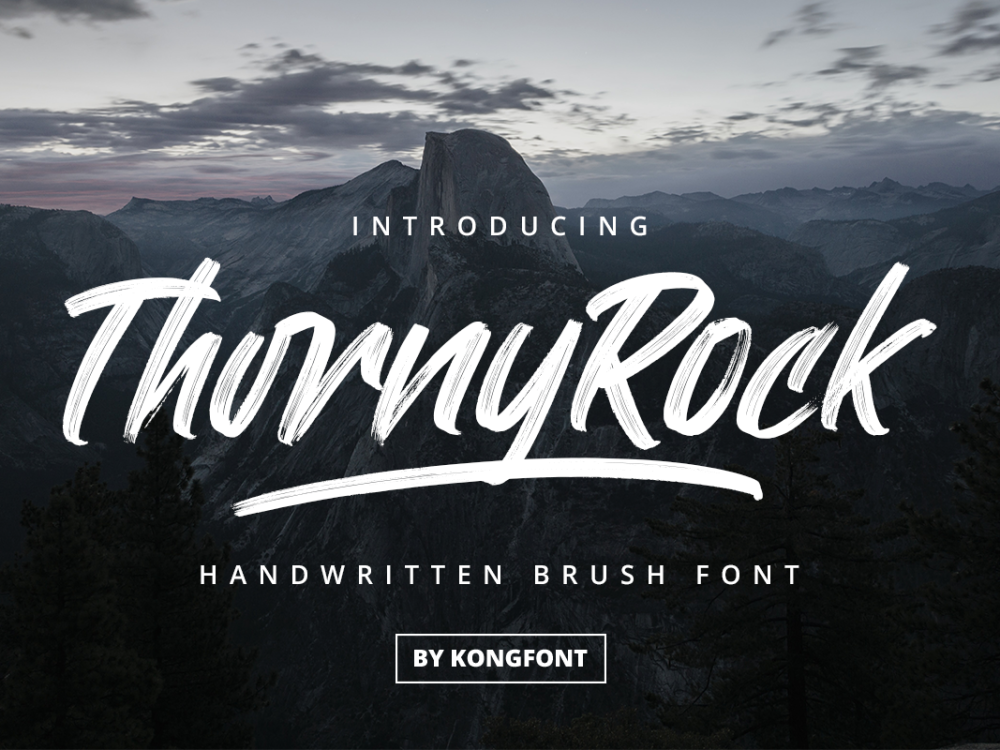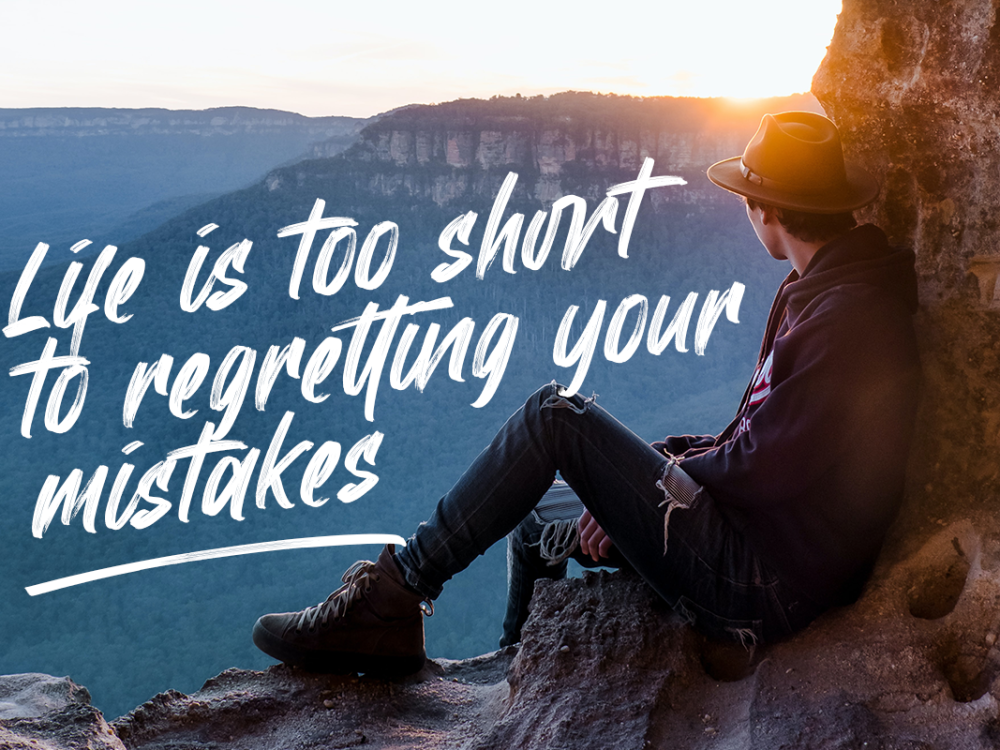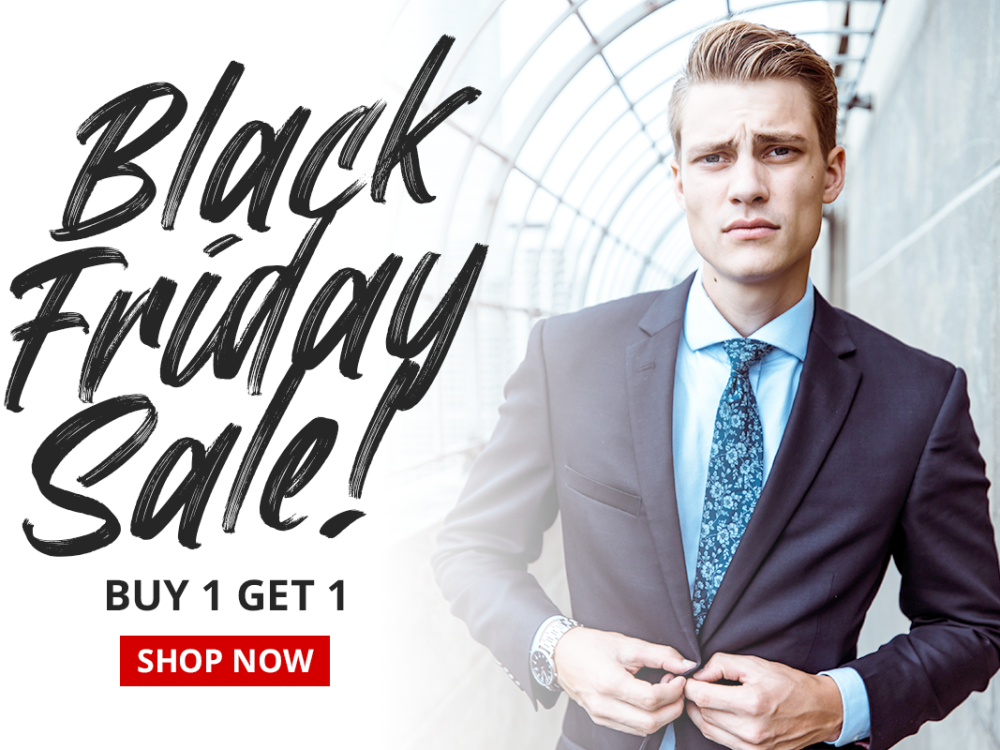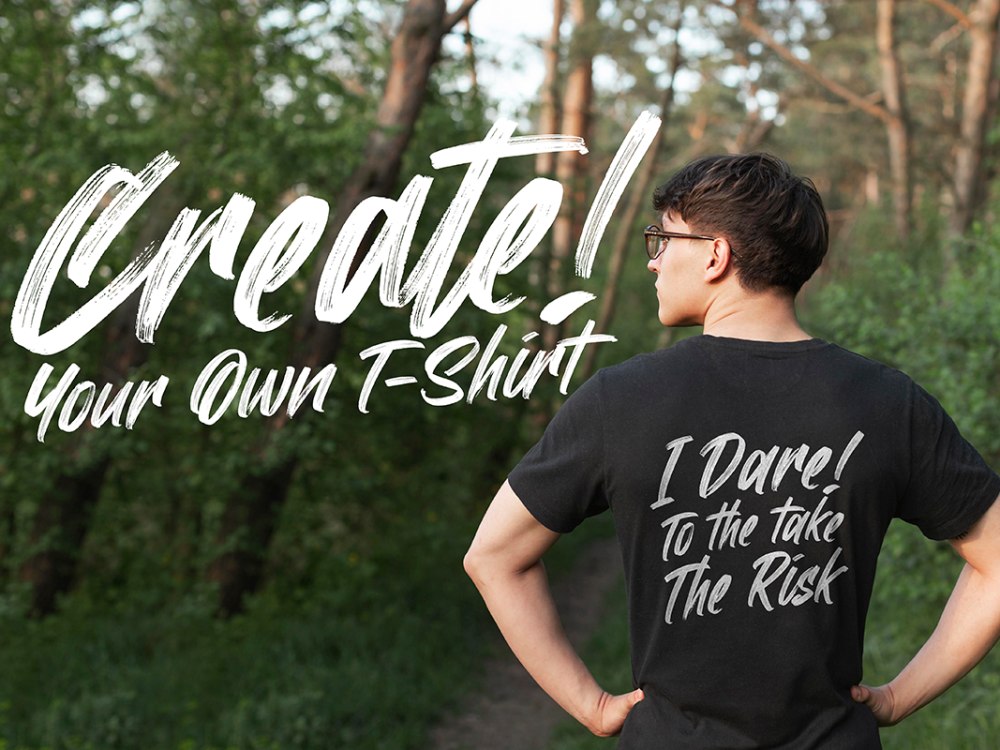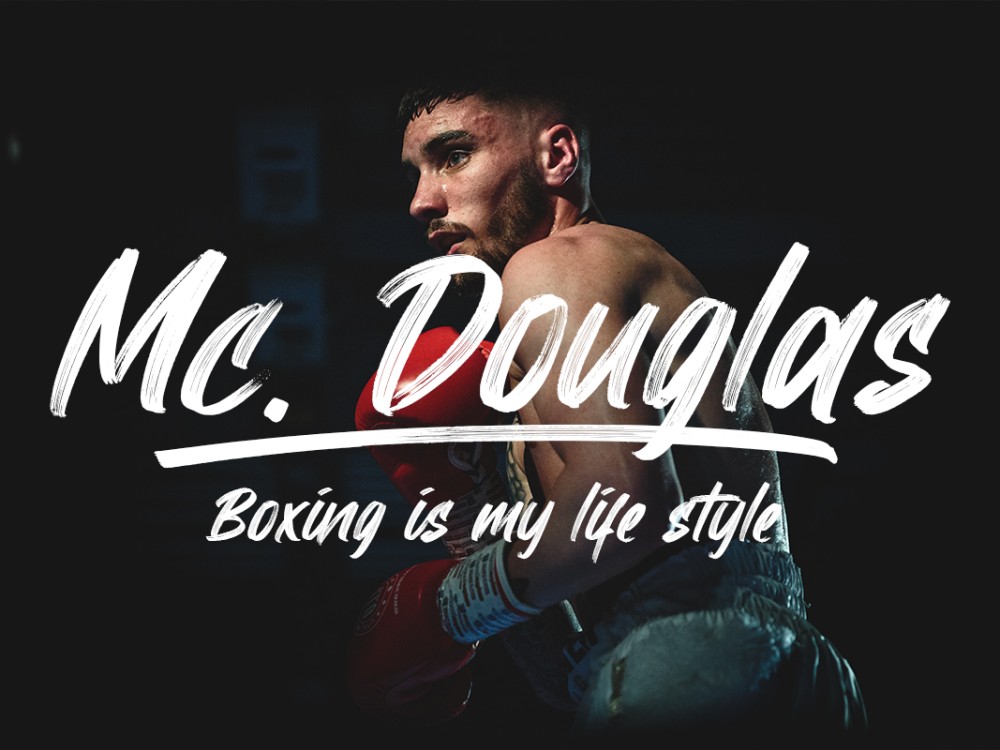
Thorny Rock Free Font
Unleash the allure of Thorny Rock Free Font – a chic and modern brush script font. With its simplicity, yet potent visual impact, this font effortlessly elevates your creations, setting them apart with eye-catching appeal. Embrace Thorny Rock to infuse your designs with an elegant touch that stands out from the rest. If you like it don’t forget to check out the full version.